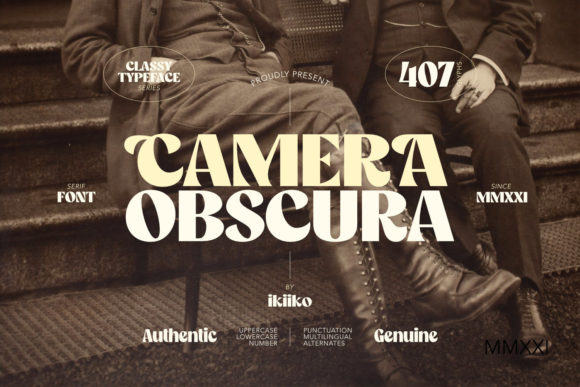
Introducing the captivating Camera Obscura Font, a vintage-inspired masterpiece that will add a touch of timeless elegance to your designs. This display font boasts a unique style that evokes the golden age of print, perfect for headlines, logos, and any project seeking a nostalgic flair.
With its meticulously crafted glyphs and swashes, Camera Obscura grants you boundless possibilities for creative expression. Its PUA encoding ensures effortless access to a world of typographic treasures, allowing you to effortlessly create designs that exude character and charm.
Whether you're a seasoned designer or just starting your creative journey, Camera Obscura Font will ignite your imagination and transform your designs into works of art. Its versatility extends from classic newspaper headlines to captivating social media posts, leaving a lasting impression on your audience.
Camera Obscura Font is more than just a collection of letters; it's an invitation to embark on a nostalgic adventure. Embrace its vintage allure and let its enchanting charm elevate your designs to new heights. Download Camera Obscura Font today and witness the transformative power of typography!